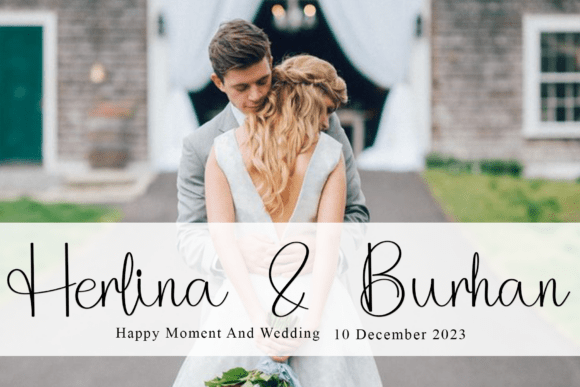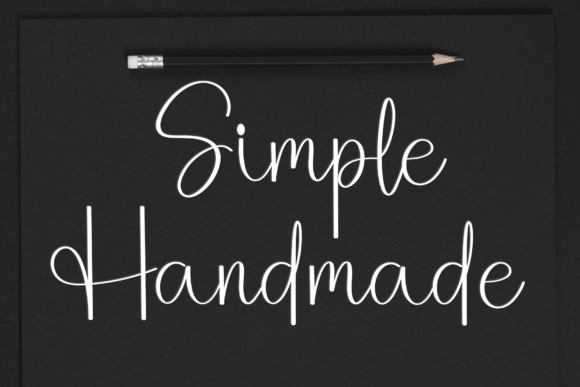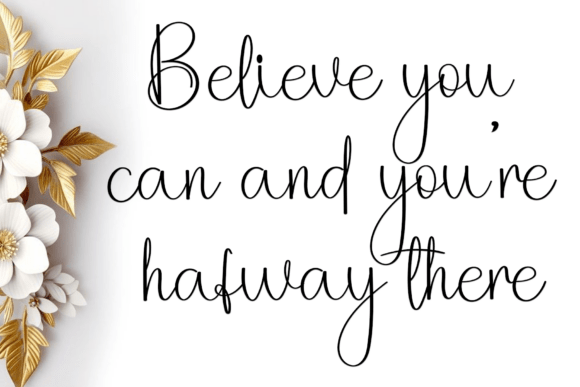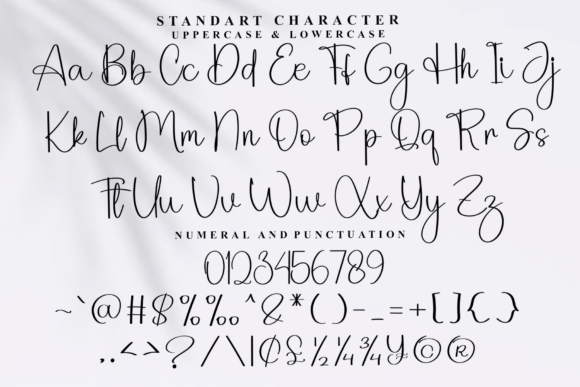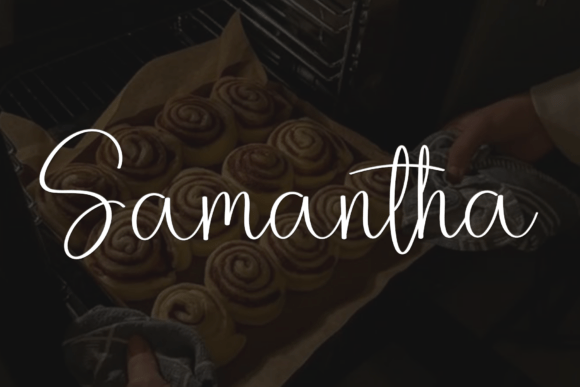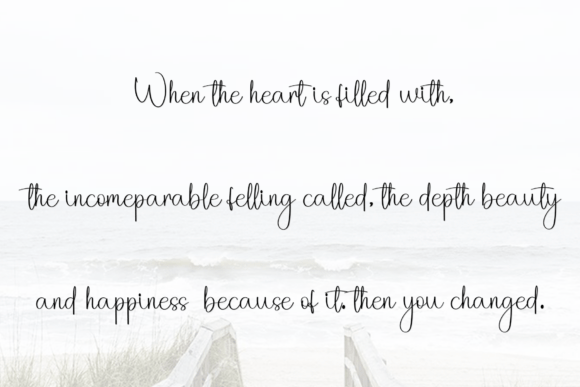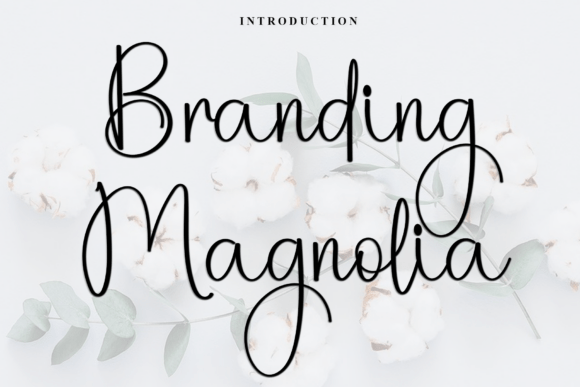
The Power of Branding Magnolia Font: Elevate Your Designs with Elegance
I’ll never forget the moment I stumbled upon the Branding Magnolia font while working on a project for a client’s wedding invitation. I had been searching for the perfect font for hours, trying out various options, but nothing seemed quite right. That was until I saw Branding Magnolia – its soft, unique touch immediately caught my eye, and I knew I had found the one. In this article, I’ll share my experience with this beautiful font, its features, and how to make the most of it in your designs.
An Honest Review of Branding Magnolia Font
- ✨ Unique and eye-catching design: The distinctive strokes of Branding Magnolia give it a special character that sets it apart from other fonts.
- ✅ Versatility: This font is perfect for a wide range of design projects, from crafts to professional branding.
- 🎨 Variety of characters: The font comes with a range of characters, making it ideal for creative works that require a personal touch.
While Branding Magnolia is an excellent font, there are a few things to keep in mind:
- ⚠️ Legibility at small sizes: Like many script fonts, Branding Magnolia may not be as legible at very small sizes. It’s best used at larger sizes or for headlines.
- 🤔 Glyph availability: Some users may find that certain glyphs or special characters are not available. However, the font does come with a range of characters, including stylistic alternates.
The Backstory of Branding Magnolia Font
The creator of Branding Magnolia drew inspiration from the natural world, aiming to craft a font that exudes elegance and sophistication. The result is a beautiful, eye-catching font that adds a personal touch to any design project.
Q: What makes Branding Magnolia font unique?
A: Branding Magnolia’s distinctive strokes and soft, unique touch set it apart from other fonts.
Q: Does Branding Magnolia support OpenType features?
A: Yes, Branding Magnolia supports OpenType features, including ligatures and stylistic alternates.